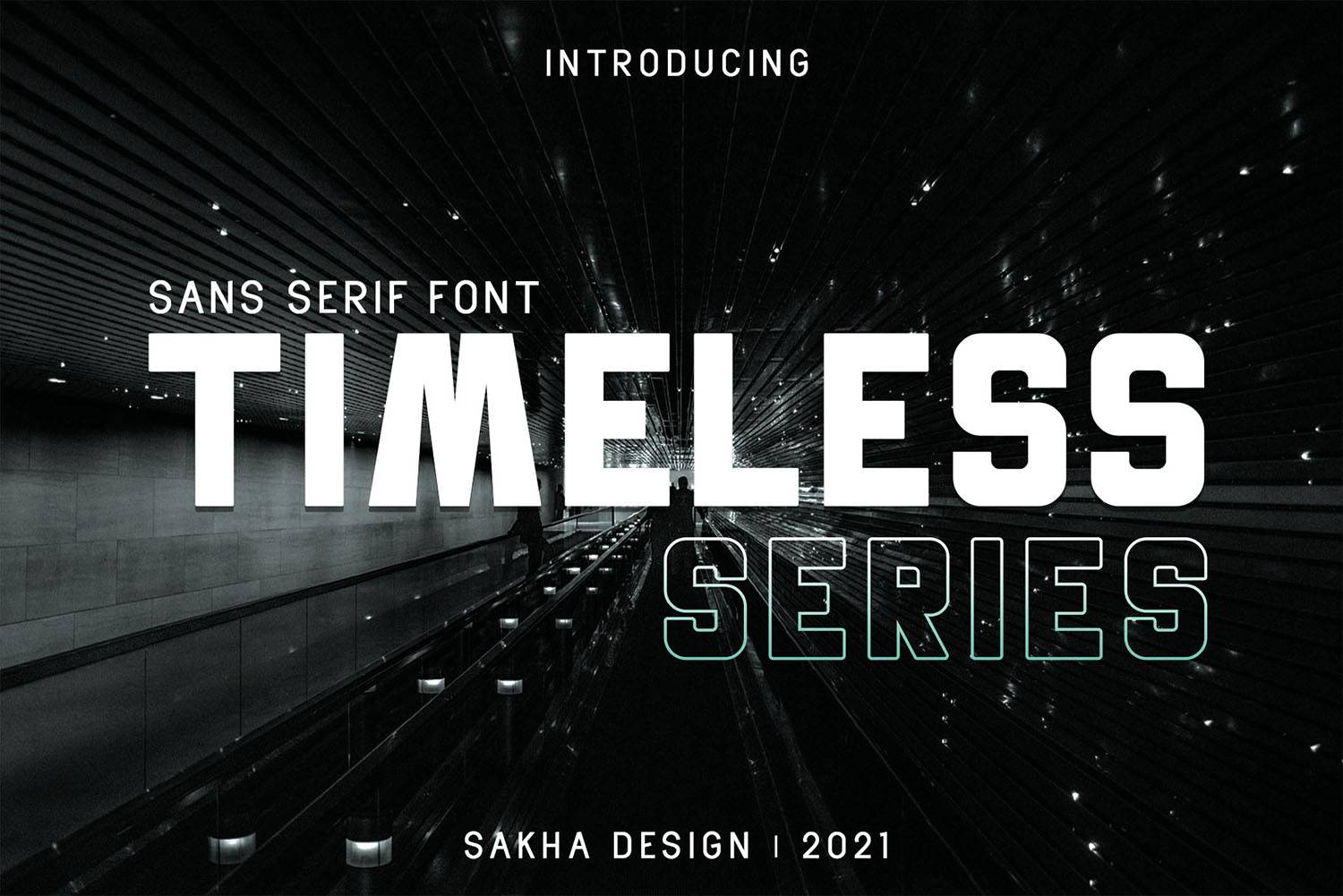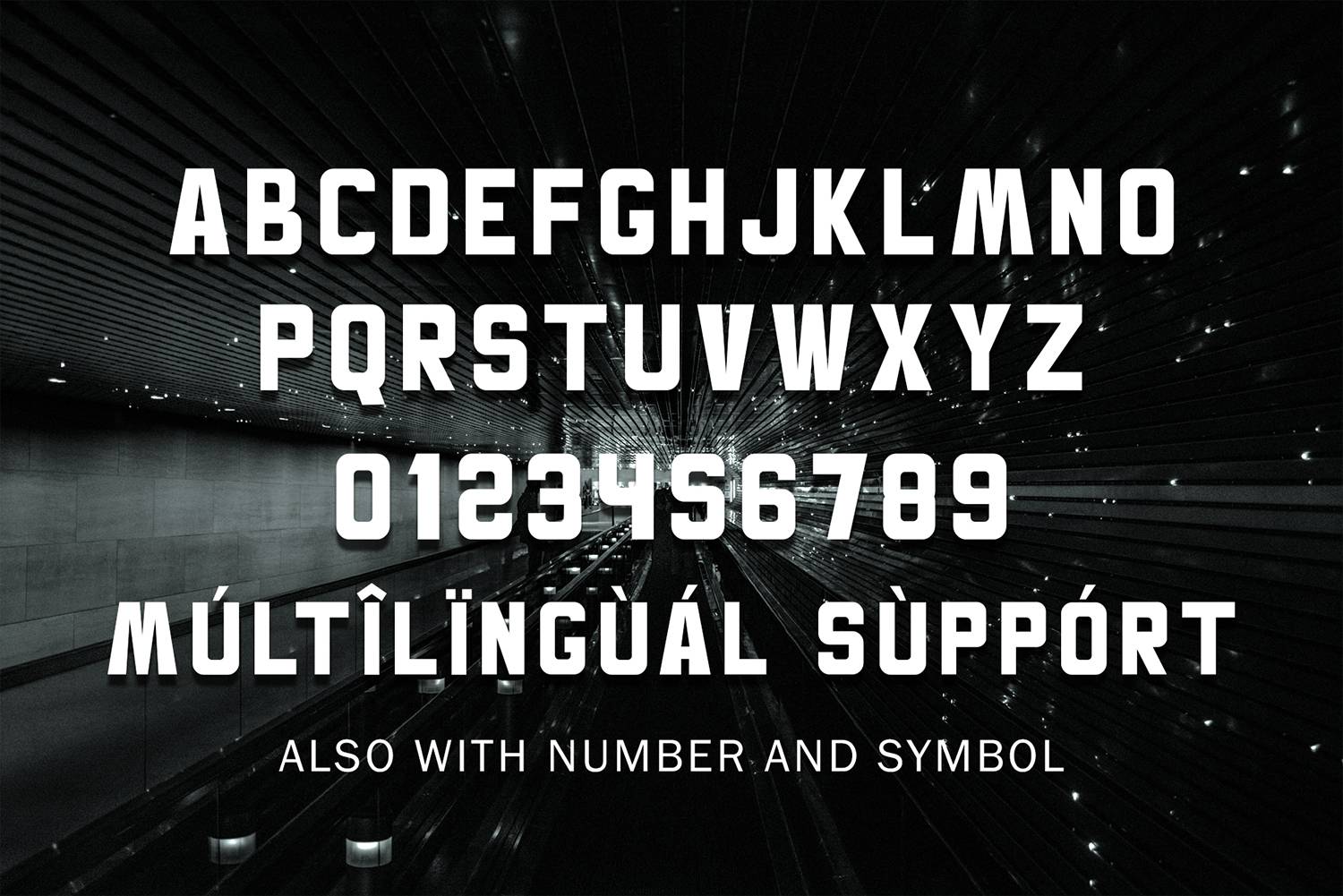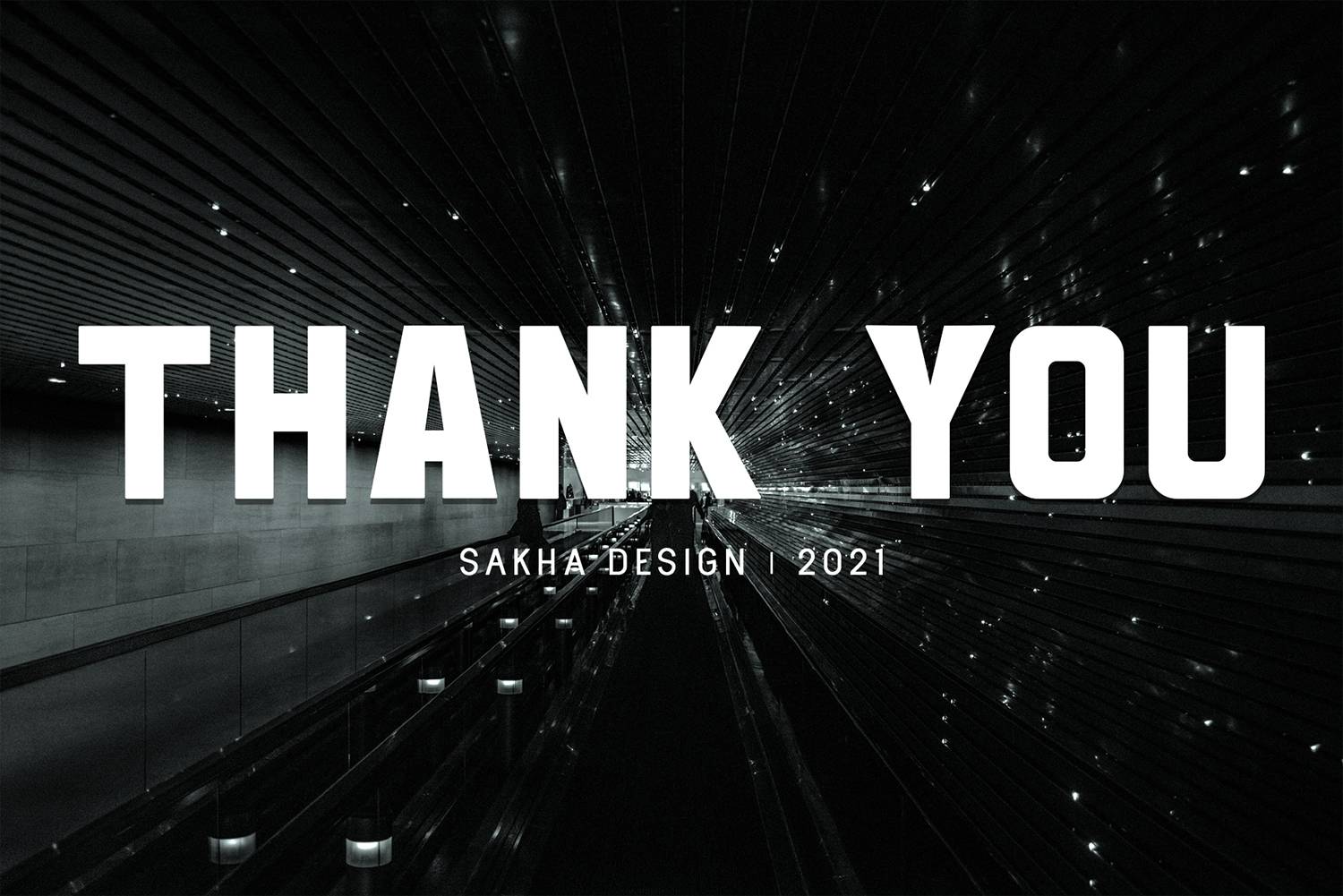
Timeless Series Font is a bold, condensed sans serif typeface with a strong industrial feel that makes it highly impactful in large sizes. Its sharp, geometric letterforms and uniform stroke weight give it a modern, no-nonsense personality, ideal for headlines, logos, and branding where clarity and strength are key. This font works well in contexts that require bold visibility and a contemporary, confident tone.
Timeless Series Font
About Timeless Series Font
| Font family | Timeless Series Font |